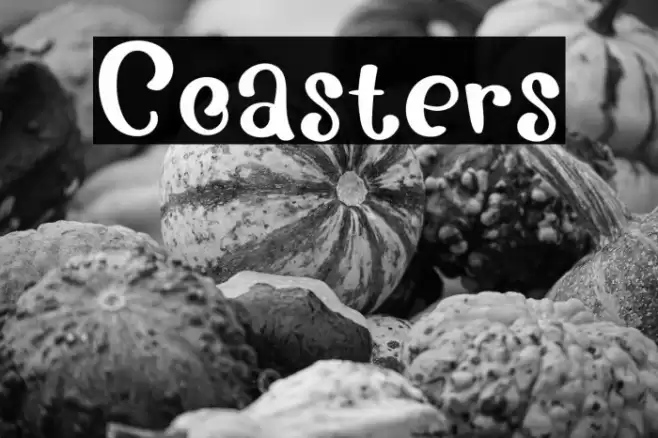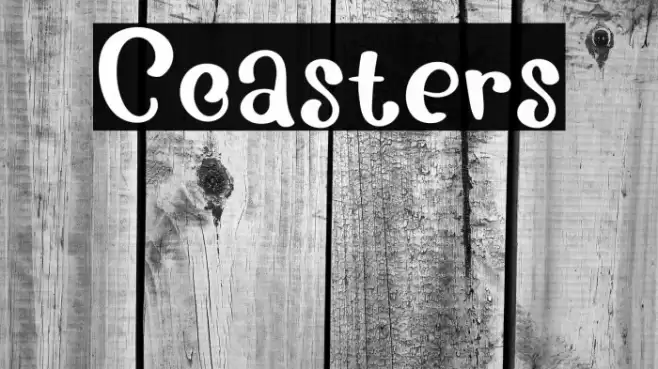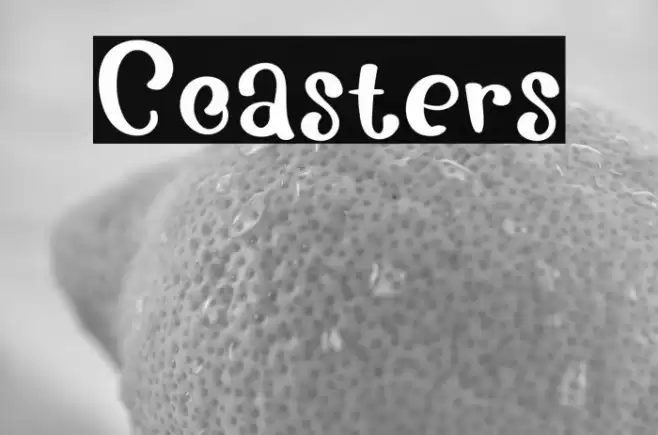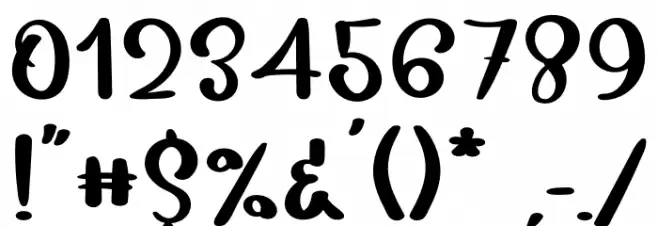
Coasters Font
Coasters Description
This font features a playful and whimsical style with rounded, bold characters that convey a sense of fun and creativity. The letters have a hand-drawn appearance, with slight variations in stroke thickness that add to its charm. The uppercase and lowercase letters are well-balanced, maintaining a consistent flow throughout. The numbers and special characters are designed to match the playful aesthetic, making them suitable for a variety of creative projects. This font is ideal for designs that require a touch of personality and flair.
A playful, hand-drawn font with bold, rounded characters from Regular fonts.